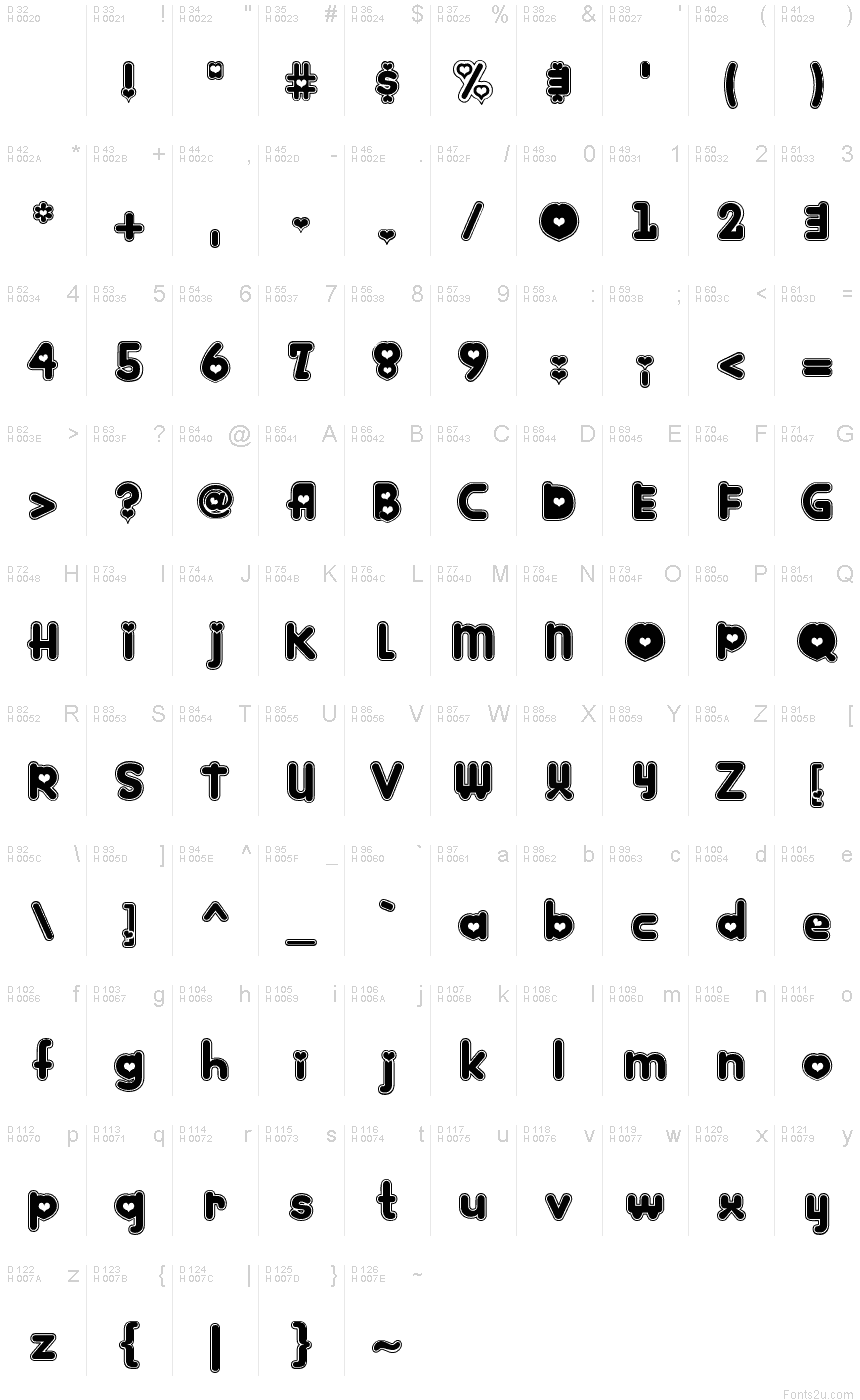
Kinkee
Kinkee font by Fontalicious is a free decorative display typeface with thick, gummy outlines and playful heart cutouts tucked into the letters. The chunky, rounded shapes feel like inflated balloons, while the crisp black stroke keeps everything bold and legible even at a distance, giving your words a candy-coated, slightly cheeky twist. It’s the kind of lettering that looks almost touchable-soft, bouncy, and unapologetically cute.
Using Kinkee, your headlines instantly lean into romance, play, and fun: think Valentine cards, party invitations, flirty posters, candy or toy packaging, stickers, and bold social graphics. This free font shines when set large, letting those hearts and thick contours breathe, and it works beautifully when paired with a clean rounded sans serif for supporting text.